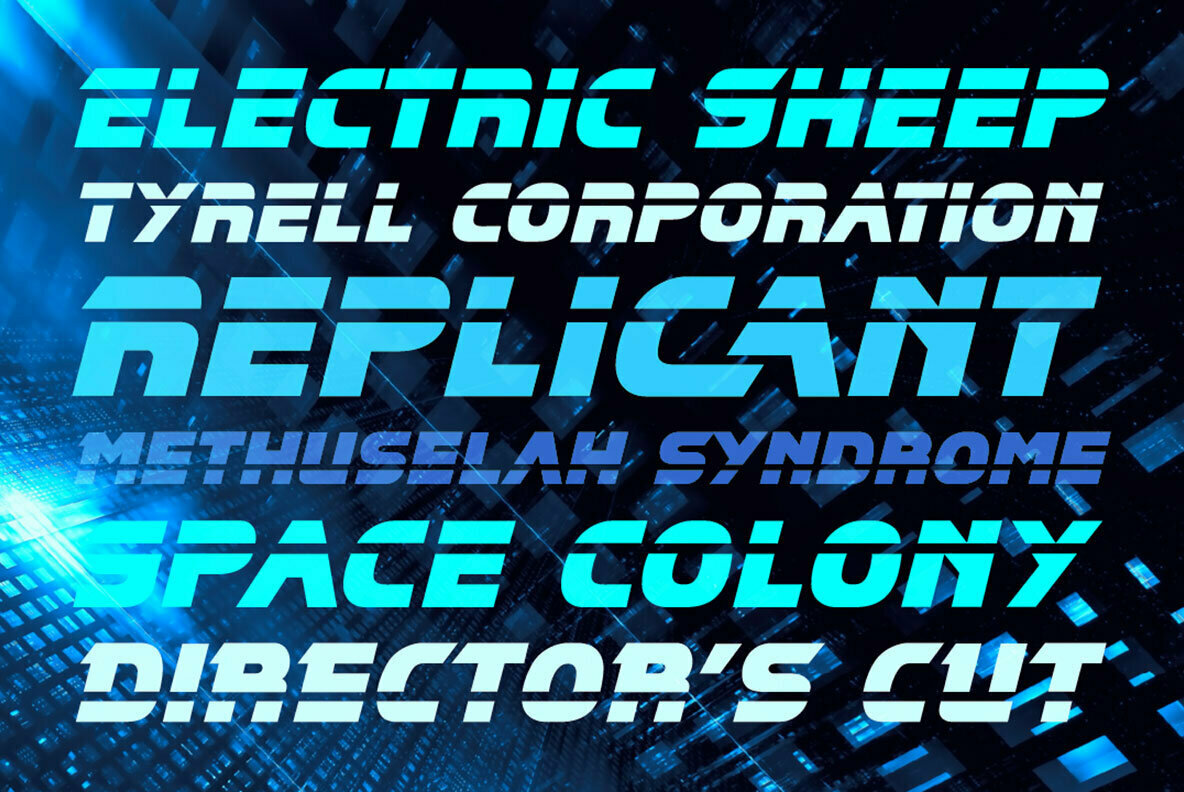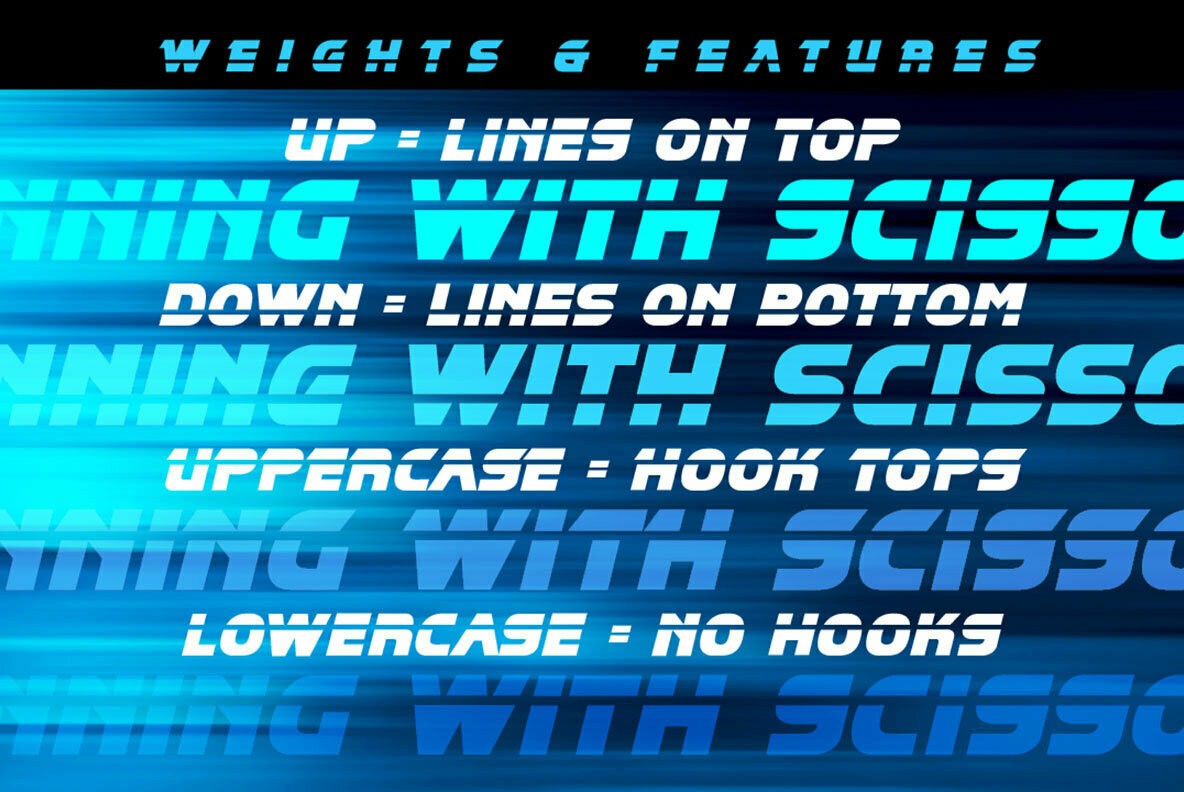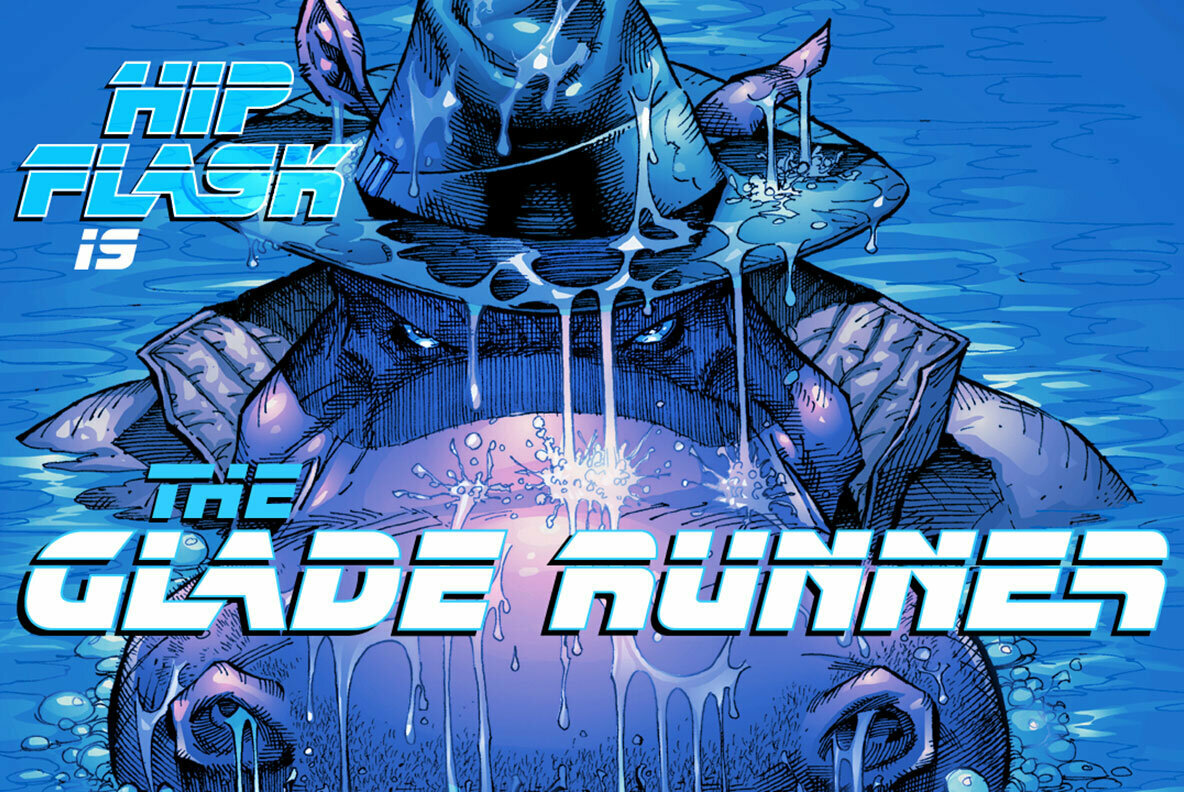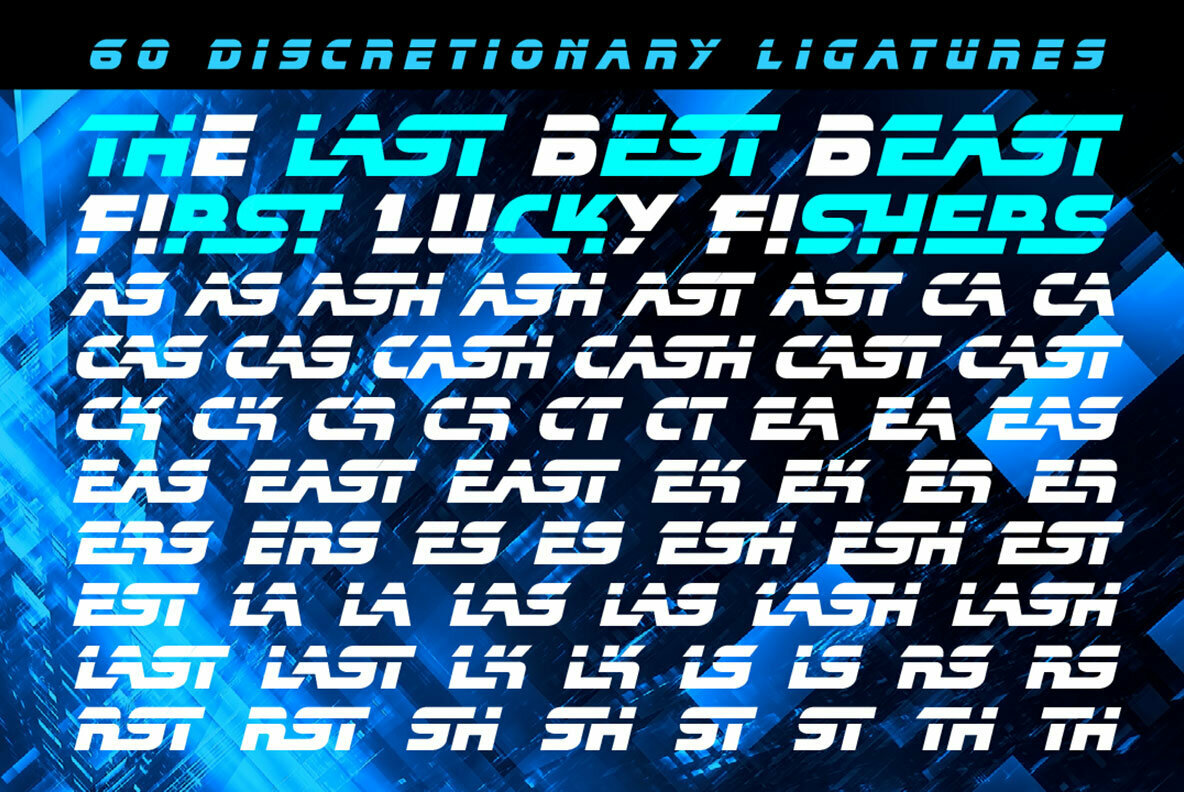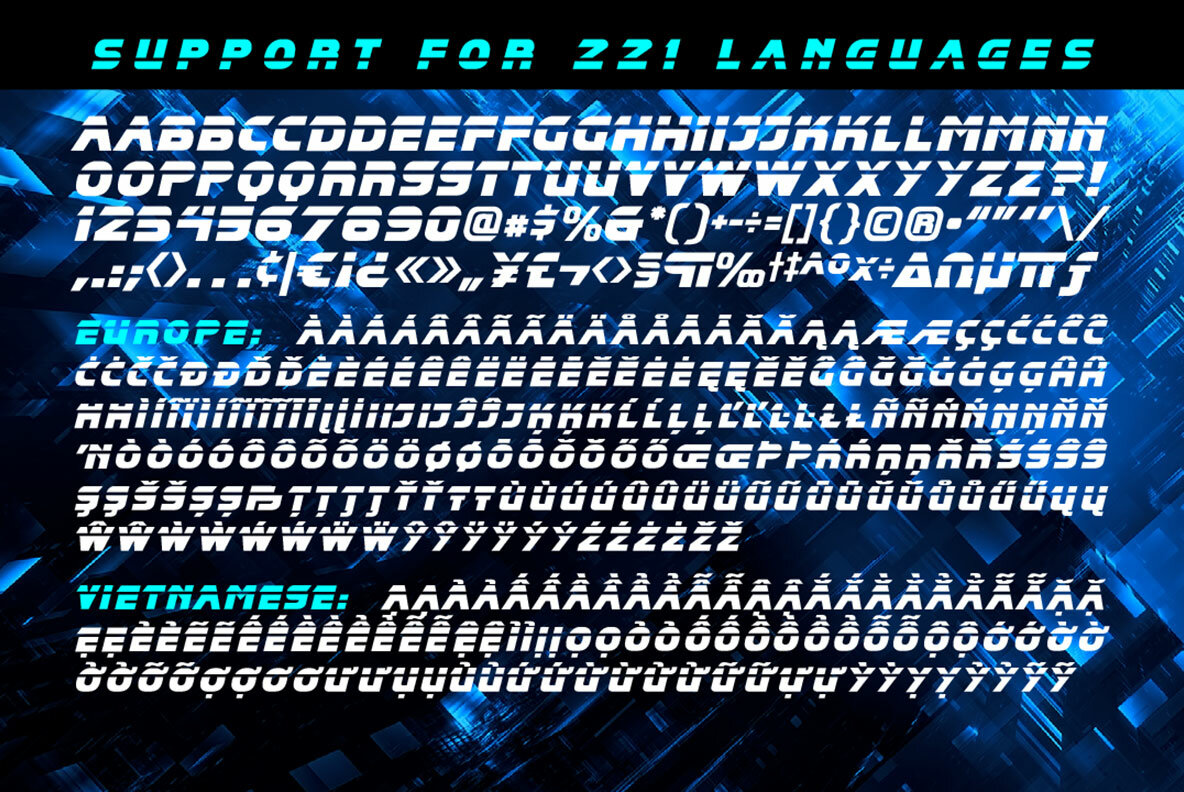
Running With Scissors 1
Your mama told you not to do it, so you just know this font will be good for you! In fact, you might say it’s a cut above the rest. Ouch! Blade runners: be careful, you don’t want to retire a human by mistake!
Running with scissors contains separate up & down weights, 60 automatic connecting ligatures and support for western & central europe and vietnamese.